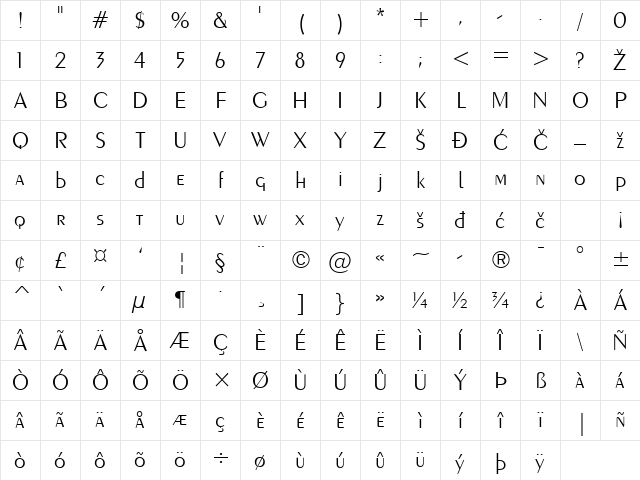
Exotic350Light Regular Free Font
Exotic350Light Regular
Design Context for Exotic350Light
Exotic350Light is a composed and adaptable typeface that performs quietly and consistently across a wide range of design contexts. Its slender proportions lend an understated elegance to any composition.